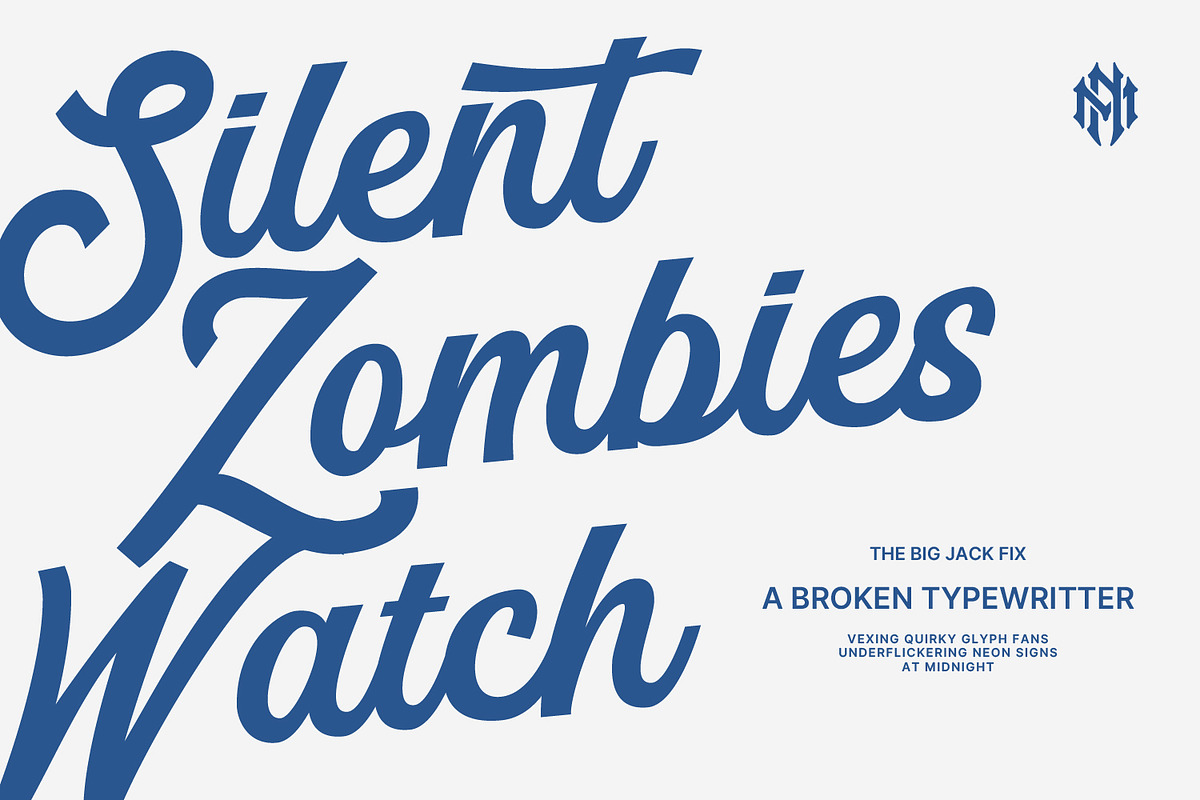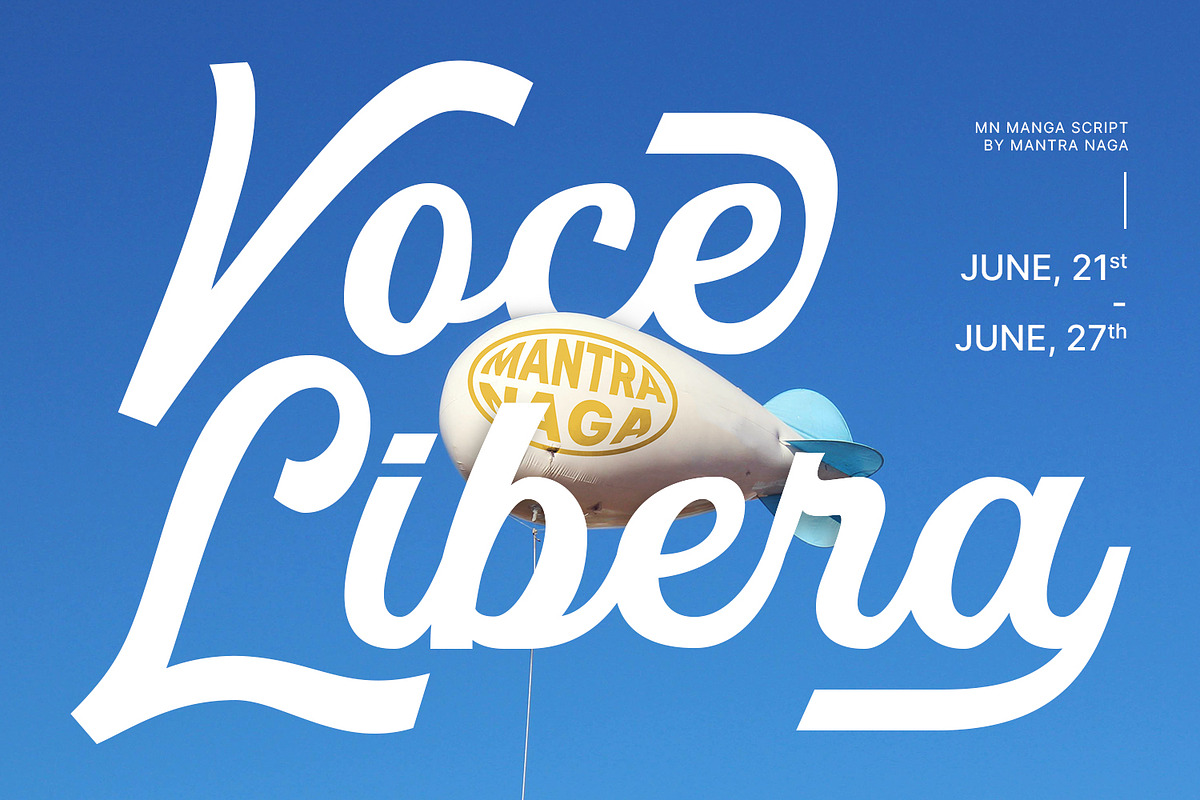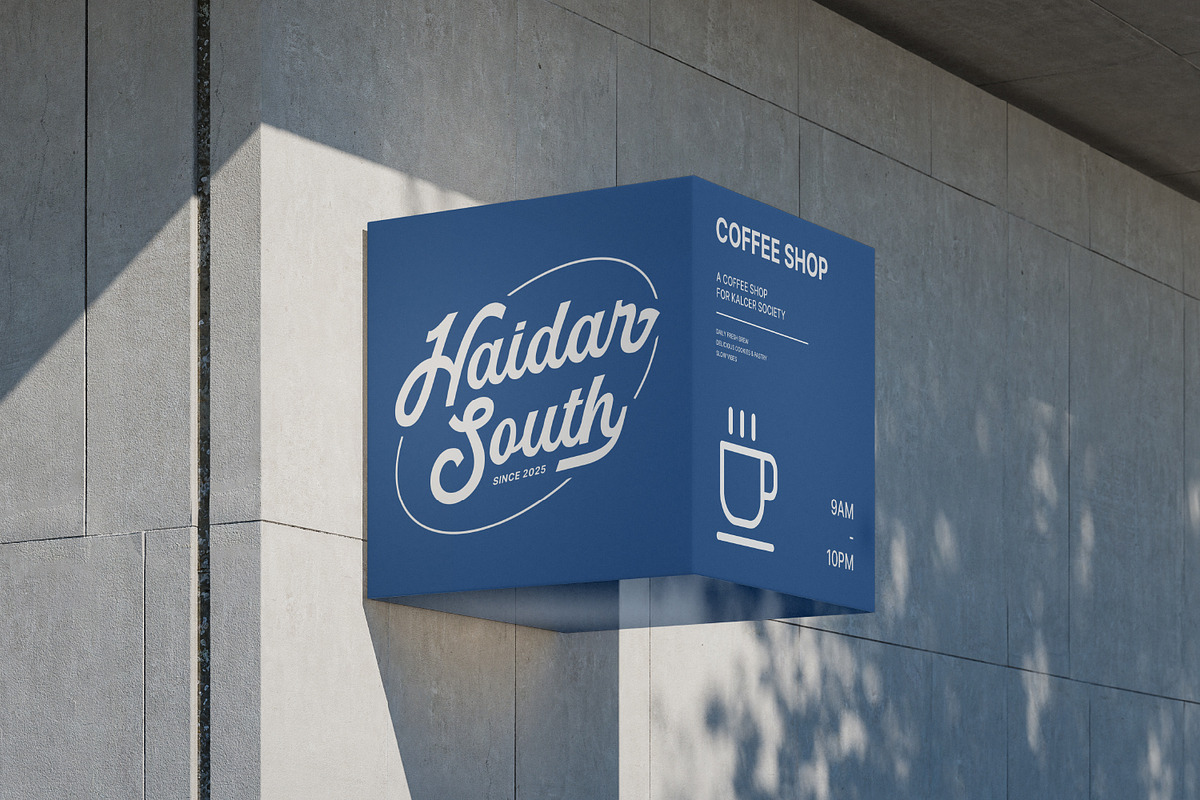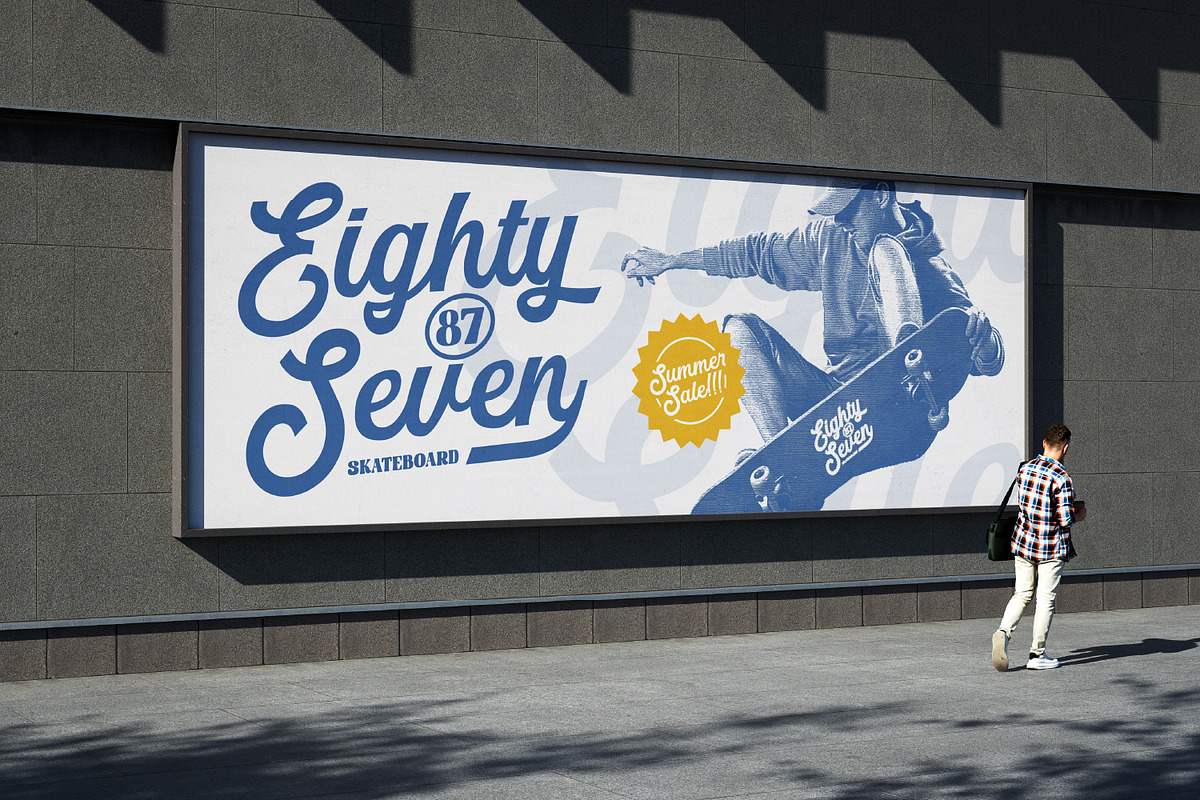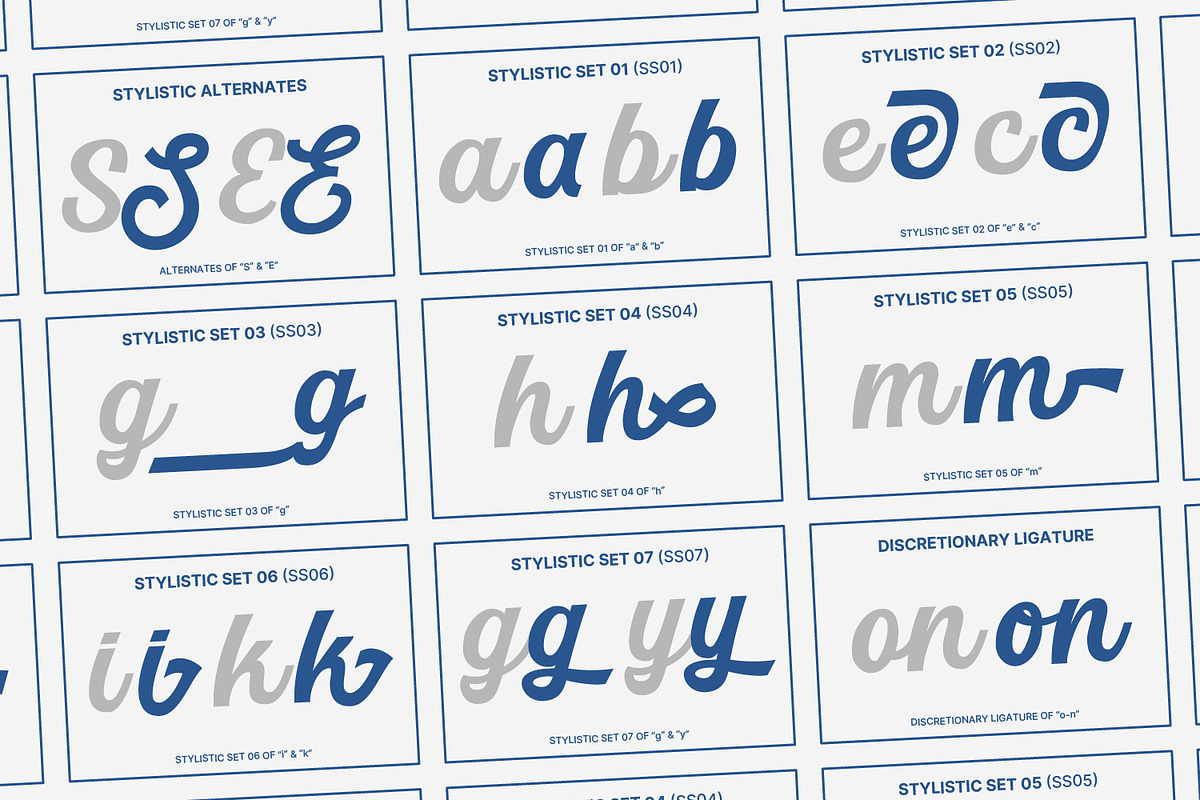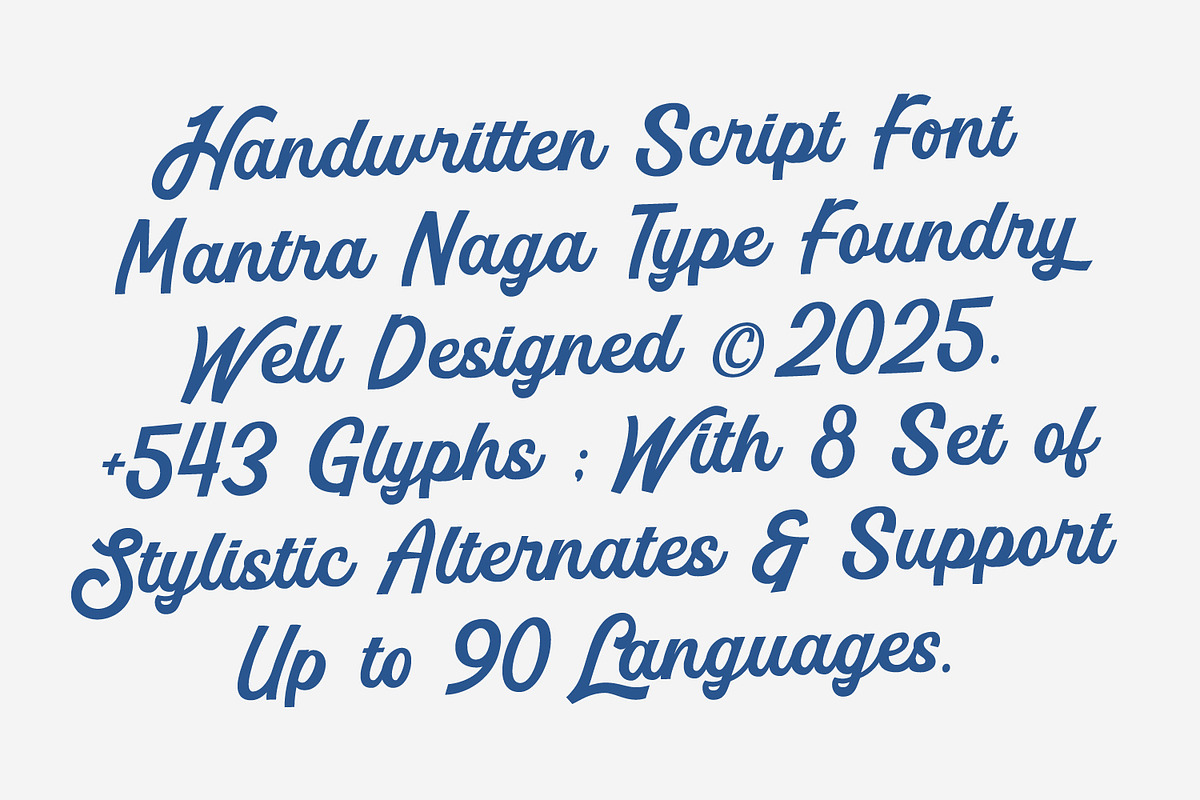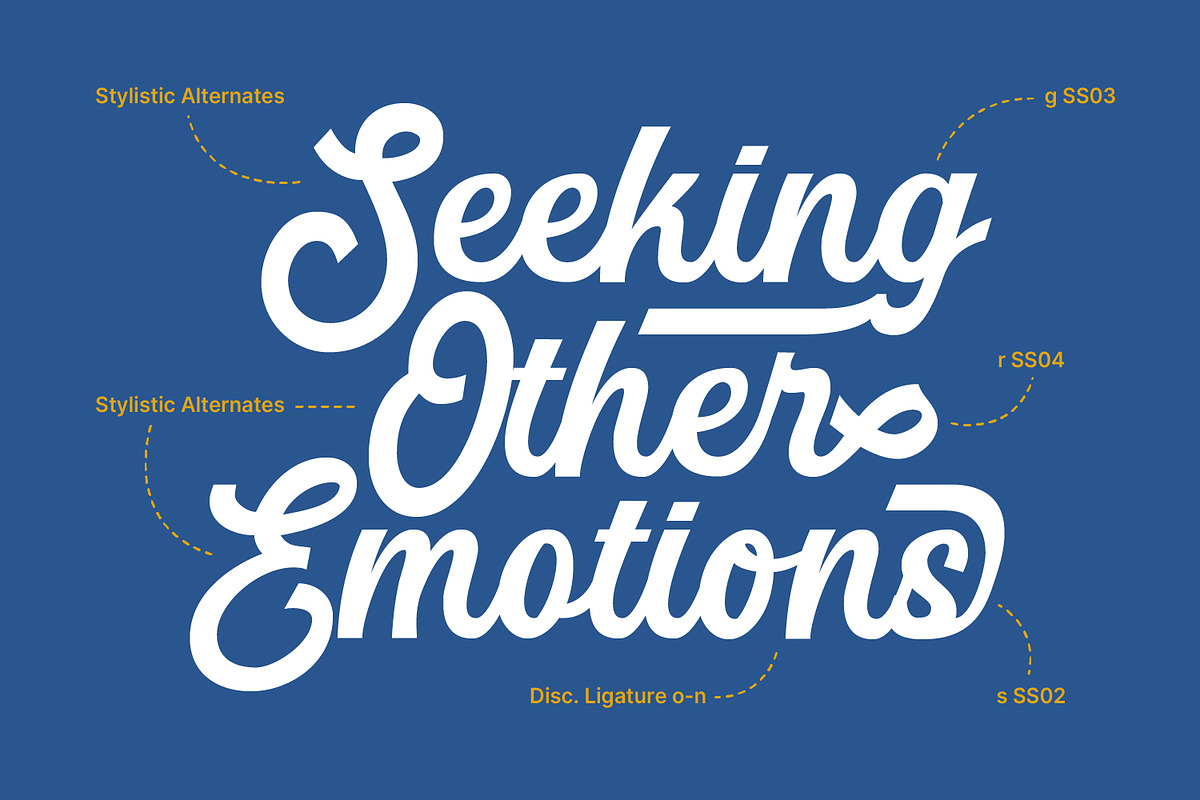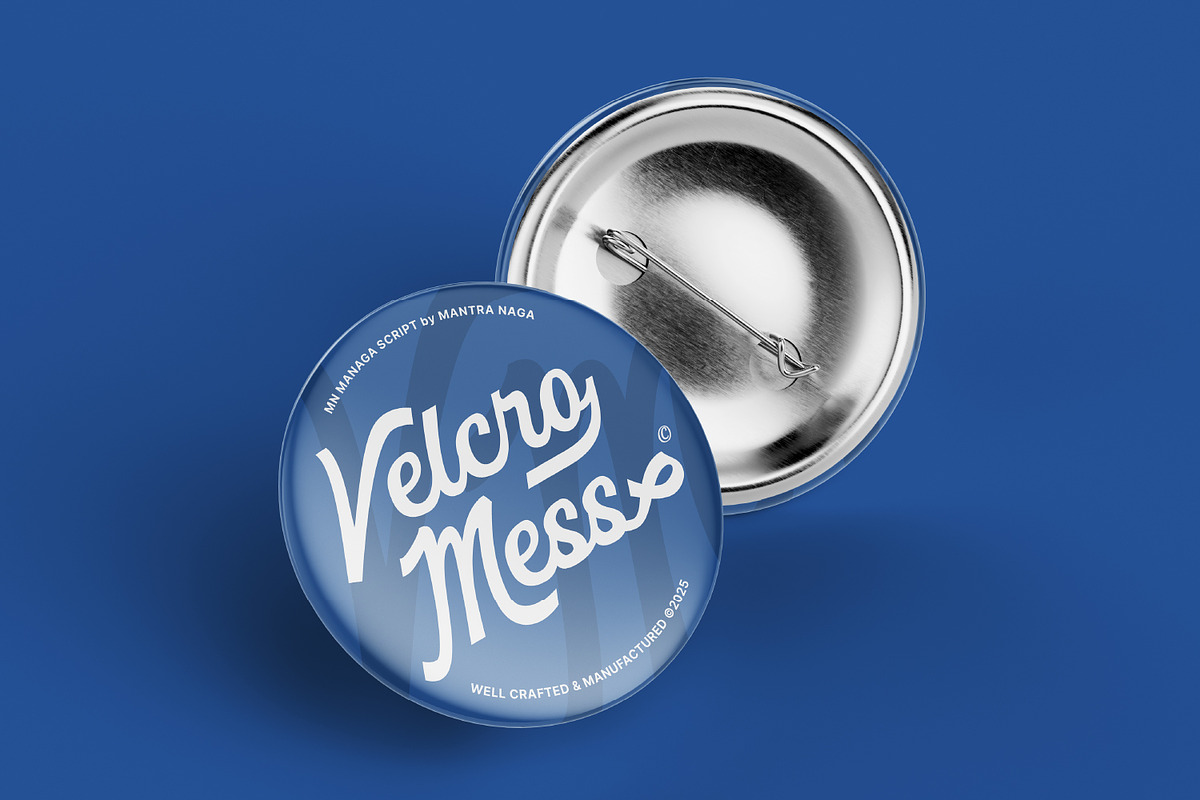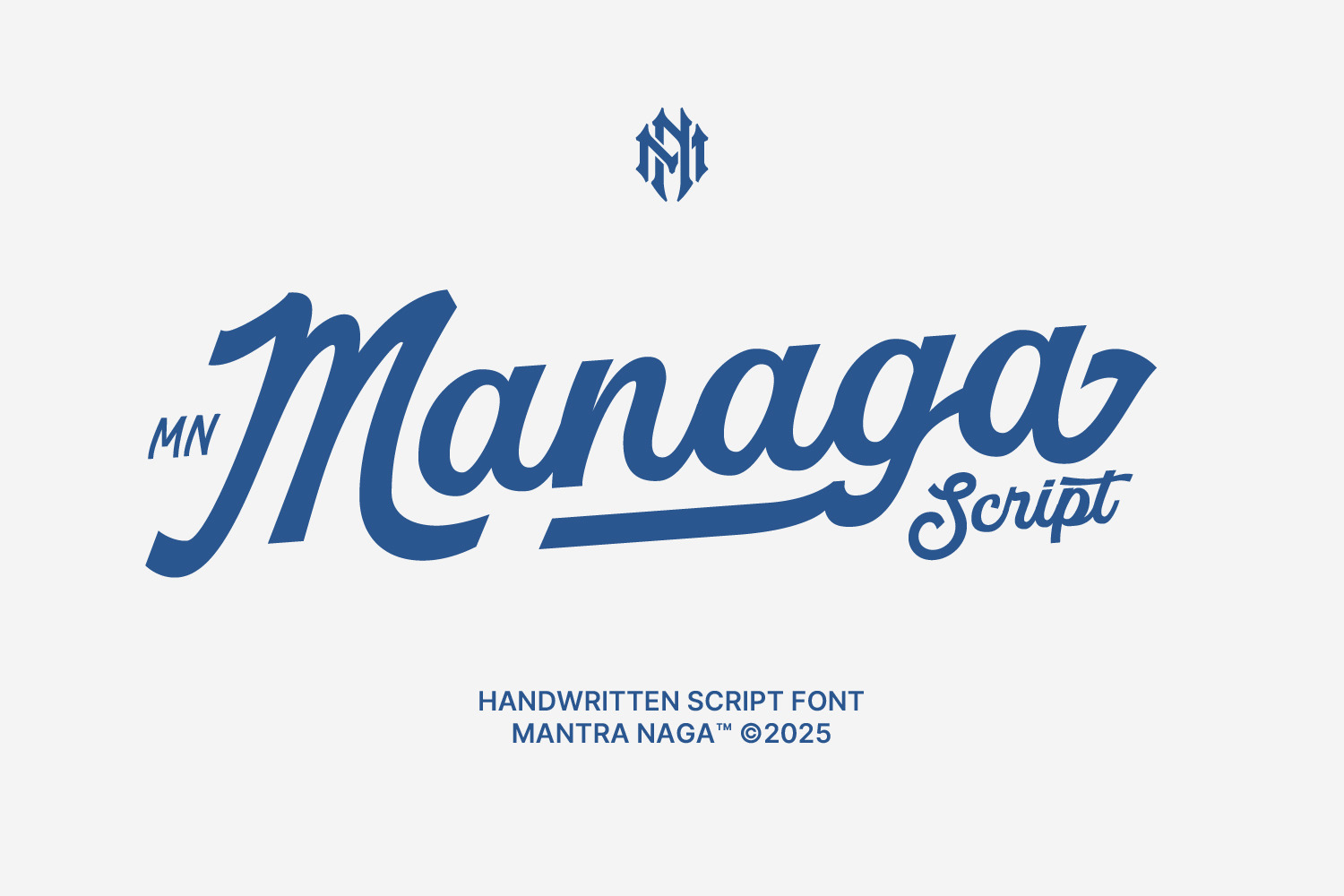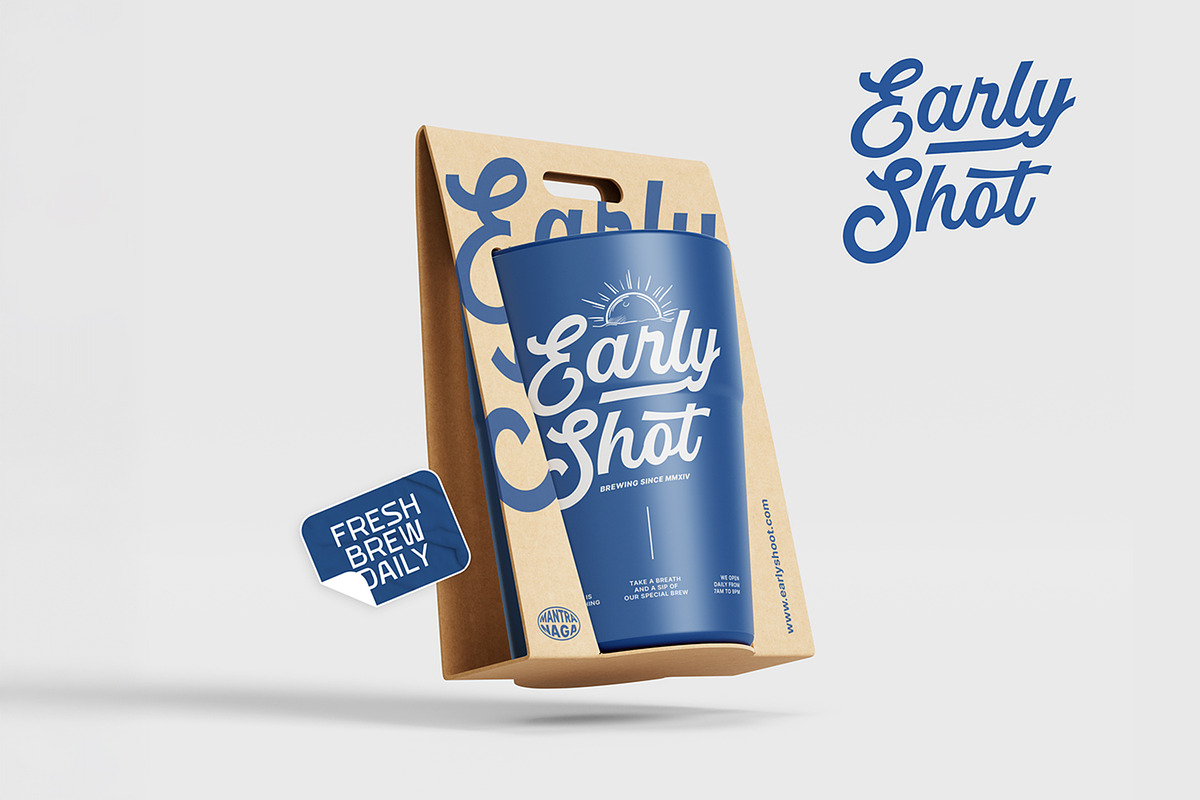
MN Managa Script - Handwritten Font
MN Managa Script is a handwritten-style script font with flat stroke endings that retain an authentic hand-drawn character. It includes 543 glyphs, featuring 8 sets of stylistic alternates, and supports 90 languages.
Designed for striking headlines, distinctive logotypes and branding, eye-catching packaging, merchandise, and any display use, Managa Script offers versatility without sacrificing personality.
“Managa” is an acronym for mantra naga, marking our first special-edition type project.